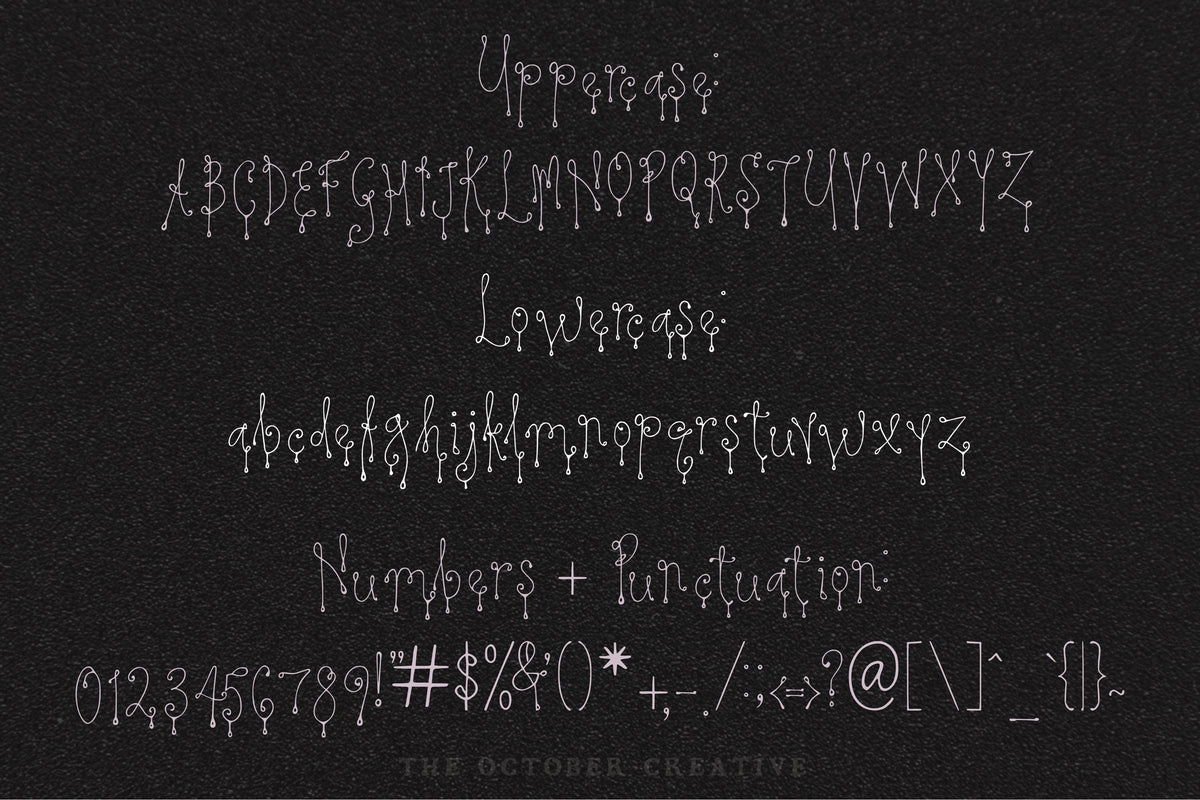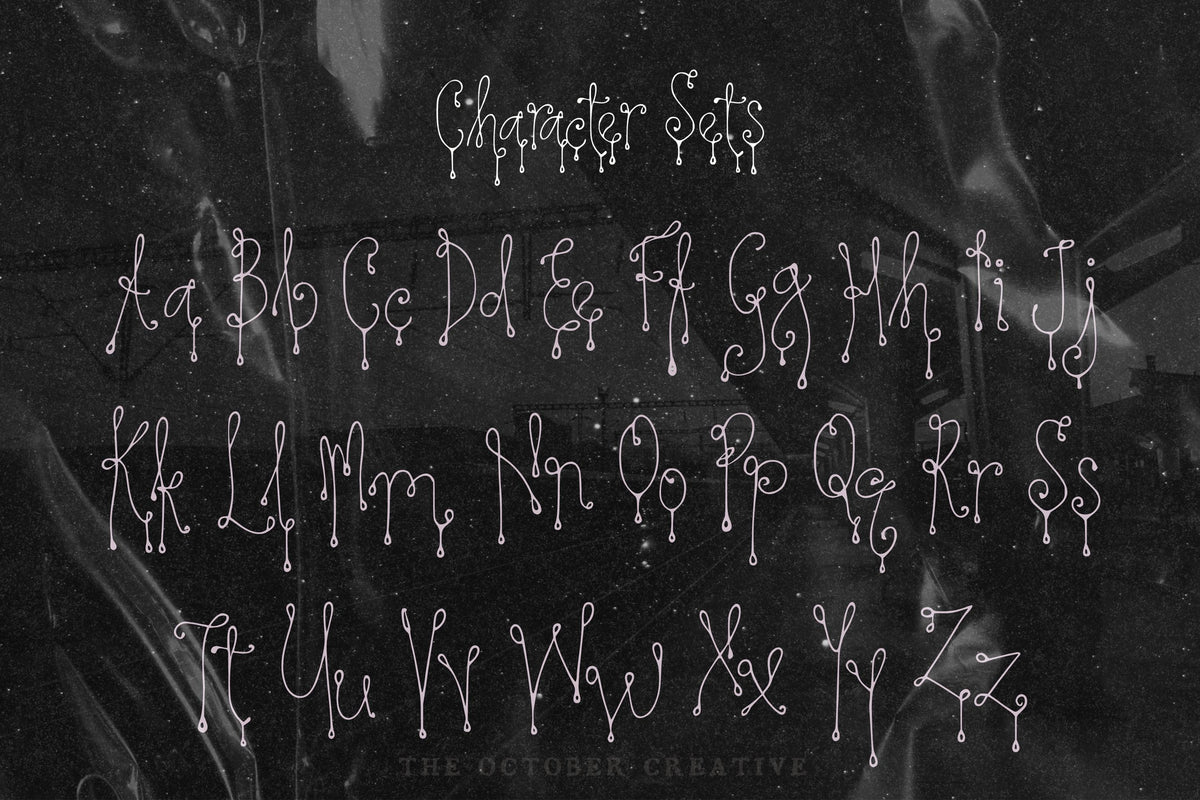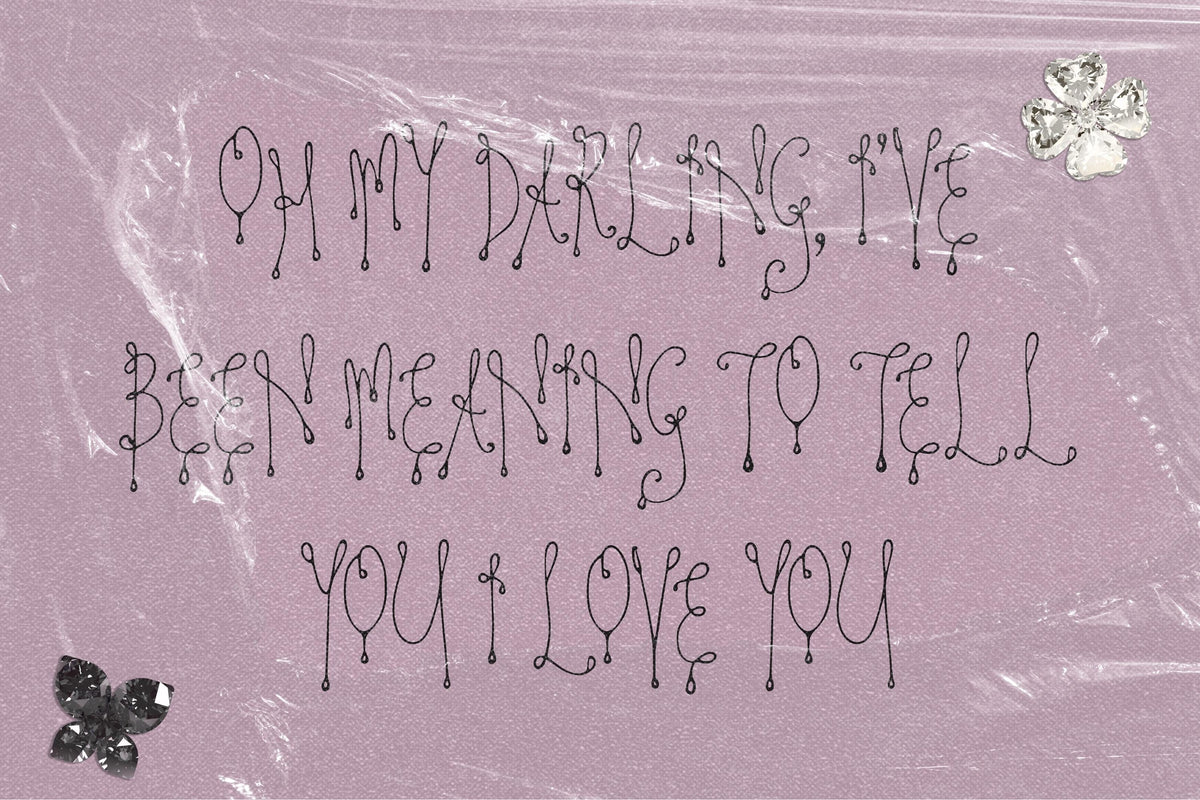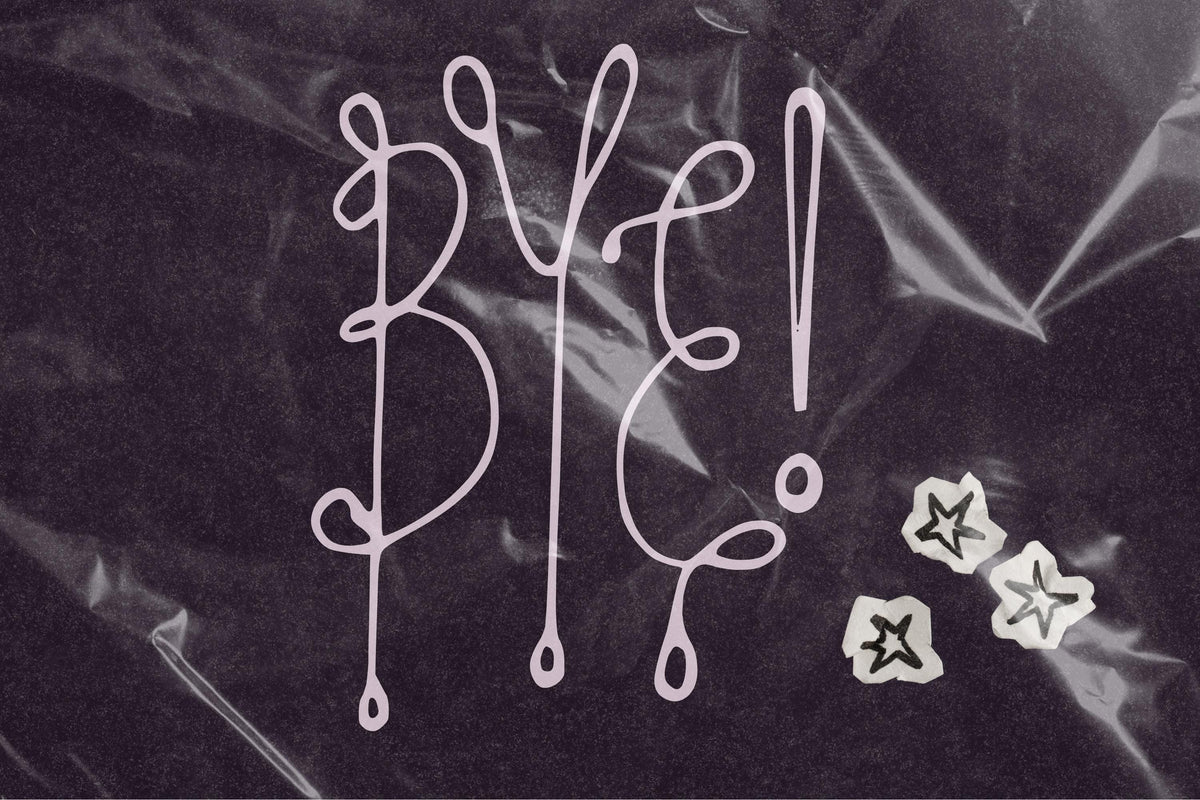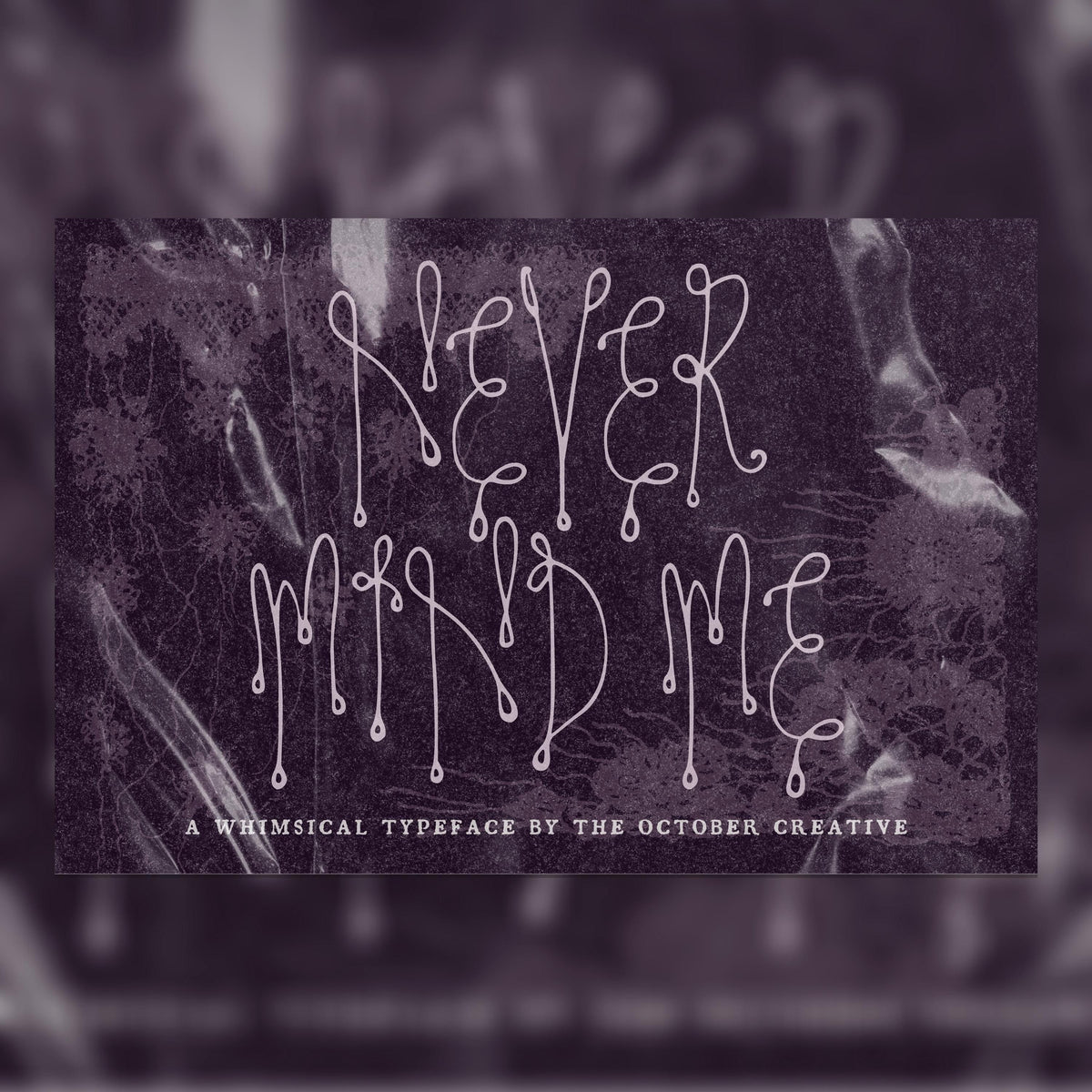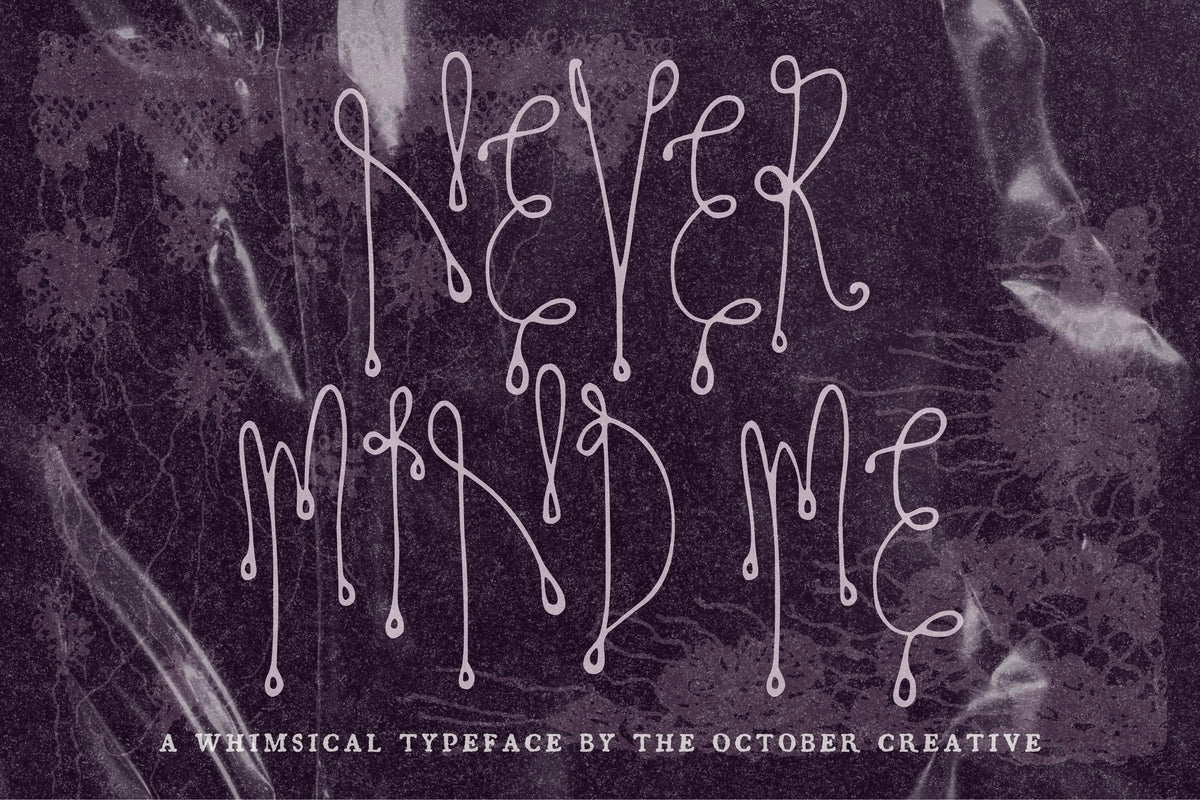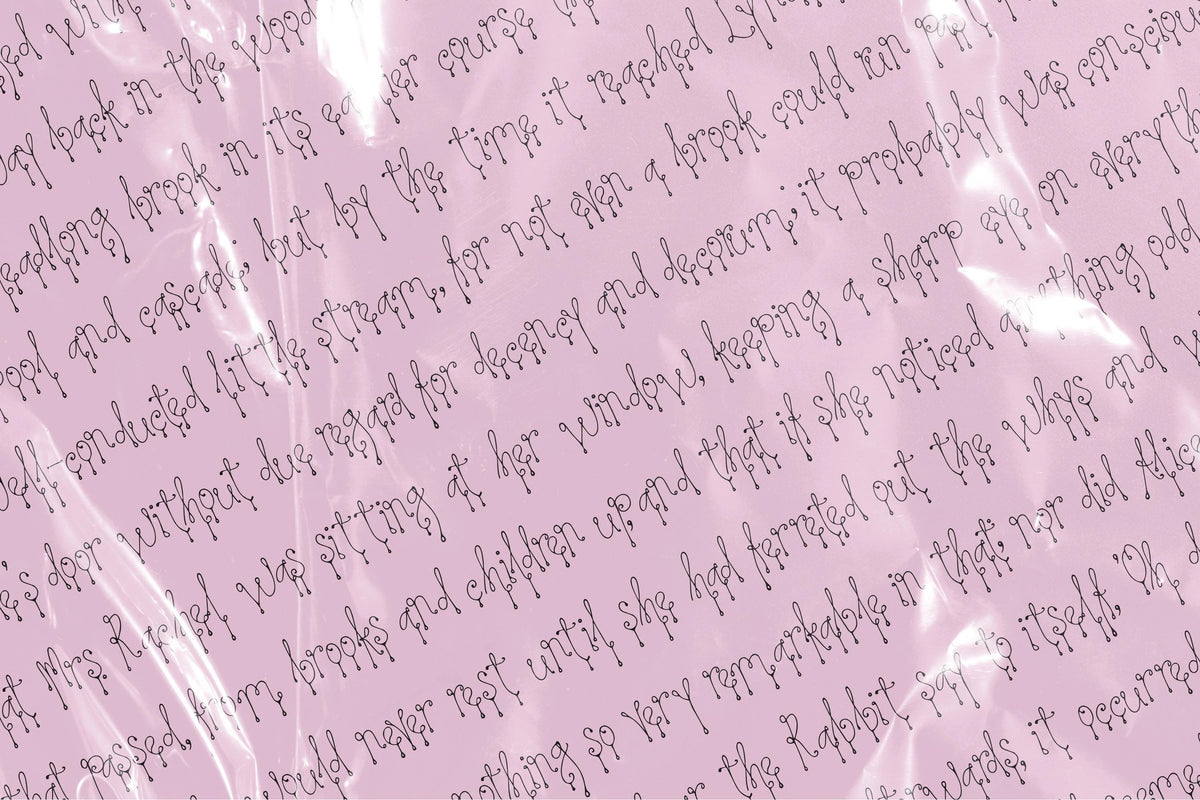
Never Mind Me Font
Never Mind Me gives your words a delicate, faded look, with fine lines and tiny hanging drops. It's a lovely choice for poetry zines, diary covers, and quiet little prints where the lettering is part of the feeling.